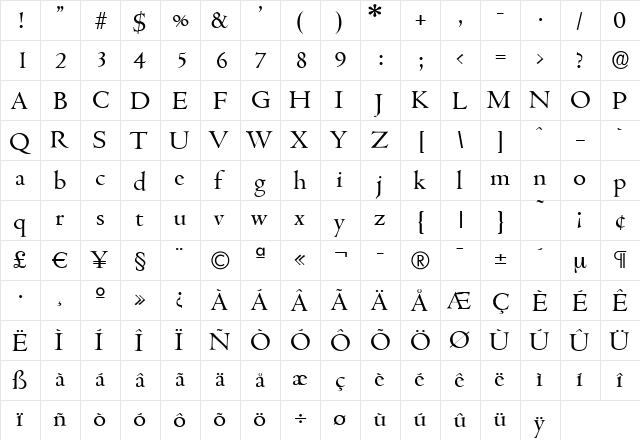
JohnBecker Regular
Design Context for JohnBecker Typeface
JohnBecker is a composed and adaptable typeface that performs quietly and consistently across a wide range of design contexts.